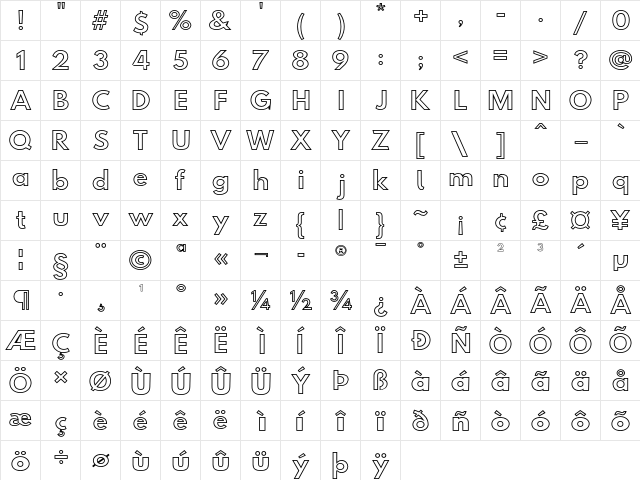
Hussar Simple ExtGho
Design Context for Hussar Simple Typeface
Hussar Simple offers clean, dependable letterforms without strong stylistic allegiance, making it a practical choice for designers who need flexibility.
Pro Tip: Use Hussar Simple in both headline and body roles to test its range before committing to a single application.